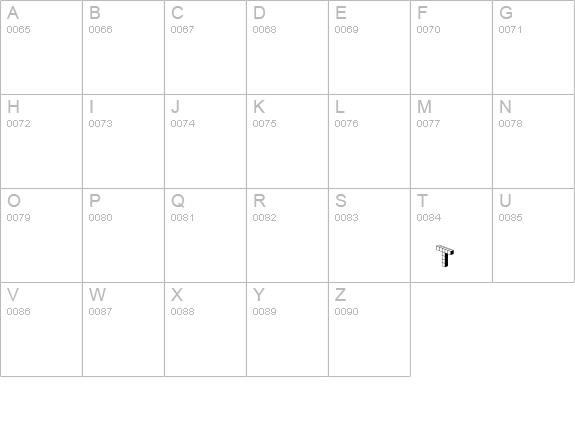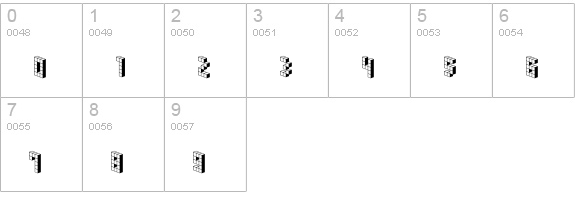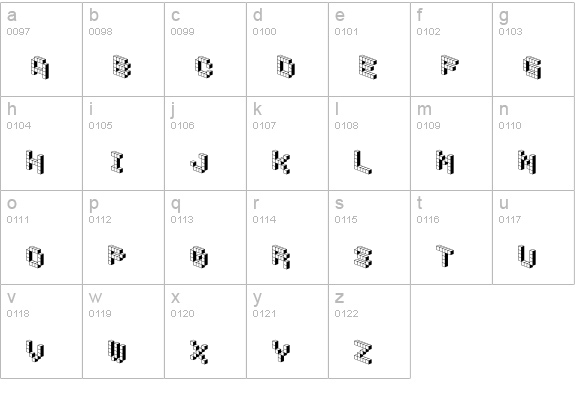
DemonCubicBlockFont Shade Font Details
Introducing the mesmerizing DemonCubicBlockFont Shade font, a truly captivating typeface that will instantly elevate your designs to new heights. This unique font boasts a perfect balance between elegance and edginess, making it the perfect choice for those looking to add a touch of sophistication with a bold twist. With its meticulously crafted cubic block design, DemonCubicBlockFont Shade font exudes a sense of power and mystery. Each letter is intricately formed, featuring sharp angles and crisp lines that create a stunning visual impact. Whether you're designing a logo, creating eye-catching headlines, or crafting impressive titles, this font will effortlessly command attention and leave a lasting impression. But what sets DemonCubicBlockFont Shade font apart from the rest is its versatility. It seamlessly blends into various design styles, from futuristic and sci-fi themes to modern and urban aesthetics. Its bold presence ensures legibility even at smaller sizes, while its unique character flourishes add a touch of personality to any project. And the best part? DemonCubicBlockFont Shade font is freely available to download at FontsMarket.com. Yes, you read that right! You can now access this breathtaking font without breaking the bank. Whether you're a professional designer or a hobbyist, this free font is a must-have addition to your collection. So why wait? Unleash your creativity and explore the endless possibilities that DemonCubicBlockFont Shade font offers. Download it today at FontsMarket.com and watch your designs come to life with an unparalleled sense of style and sophistication.